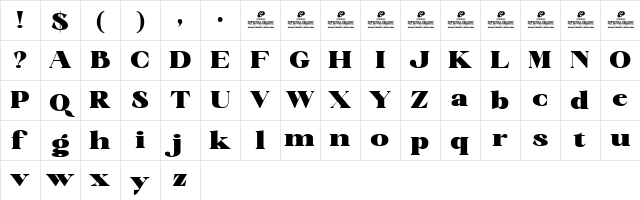
Radiant Charisma DEMO Black Regular Free Font
Radiant Charisma DEMO Black Regular
Designer: Prio Nurokhim Aji
Design Context for Radiant Charisma DEMO Black
Radiant Charisma DEMO Black is a composed and adaptable typeface that performs quietly and consistently across a wide range of design contexts.